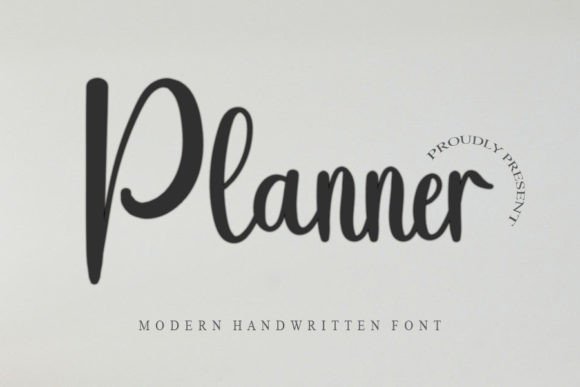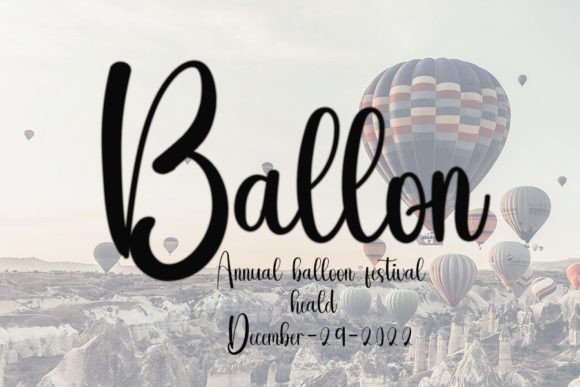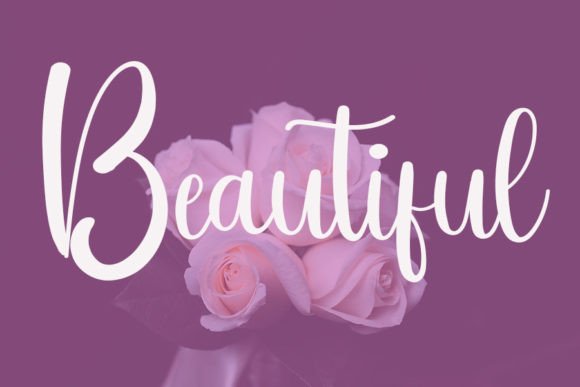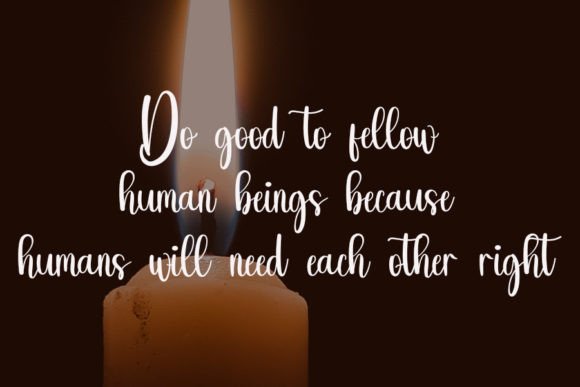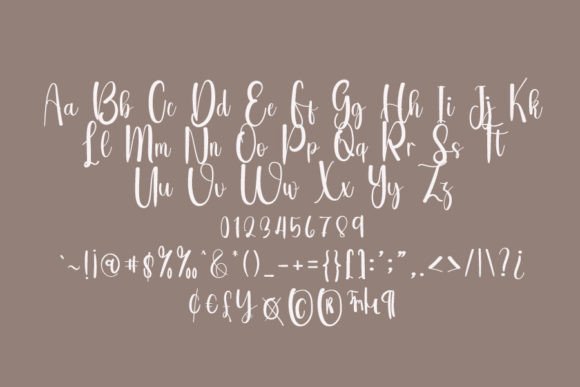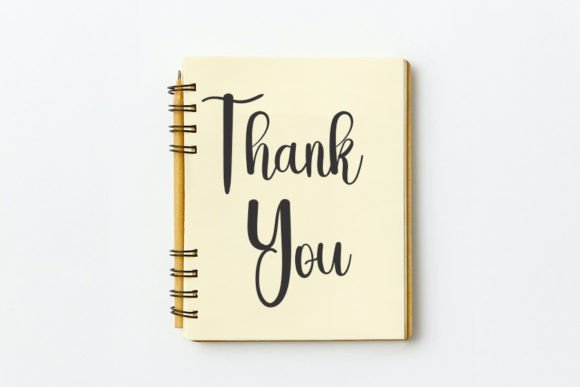
Planners Font
About Planners Font
Planners is a simple, cute, and elegant script font. Add this bold and incredibly versatile font to each of your creative holiday designs, and notice how they level up.